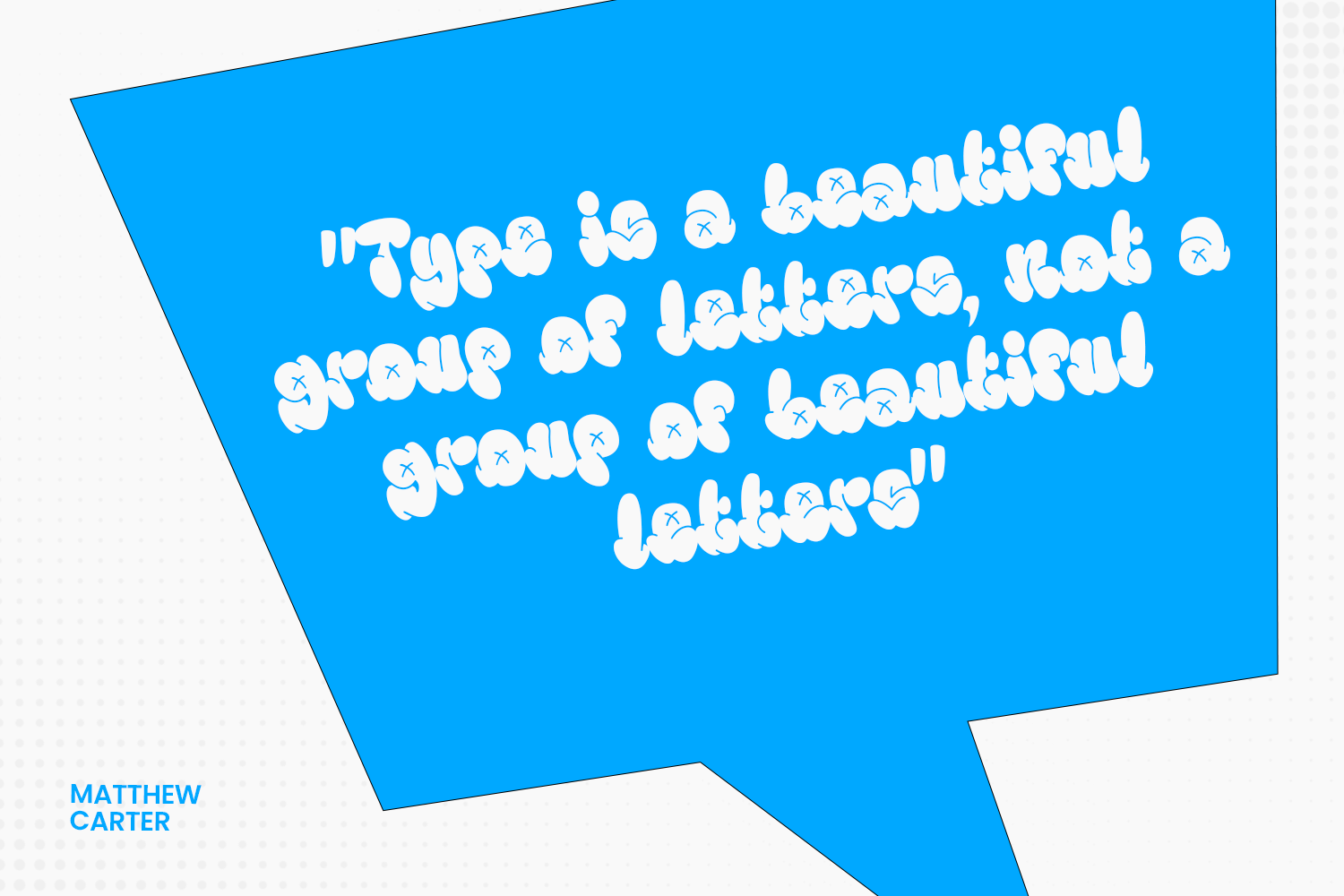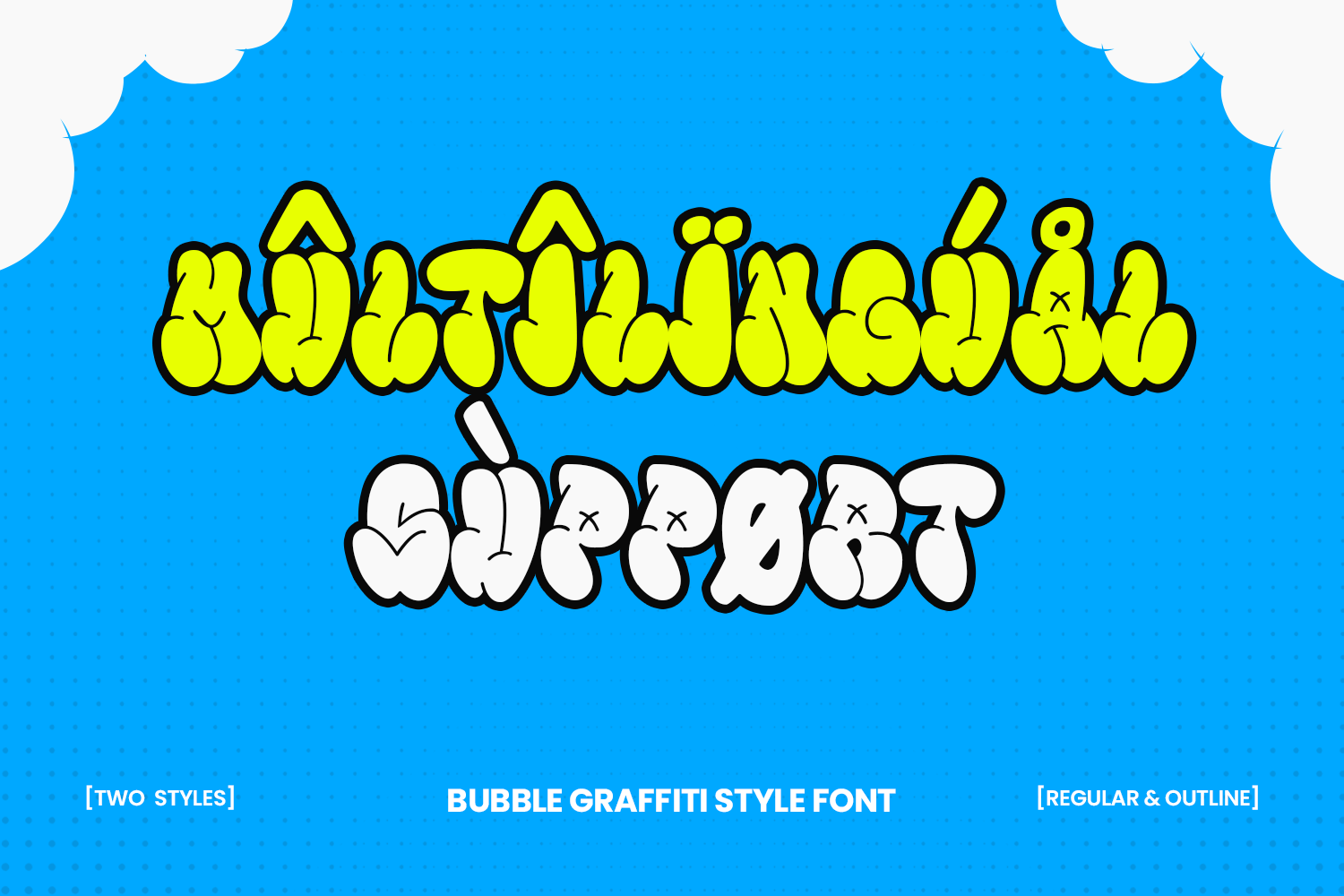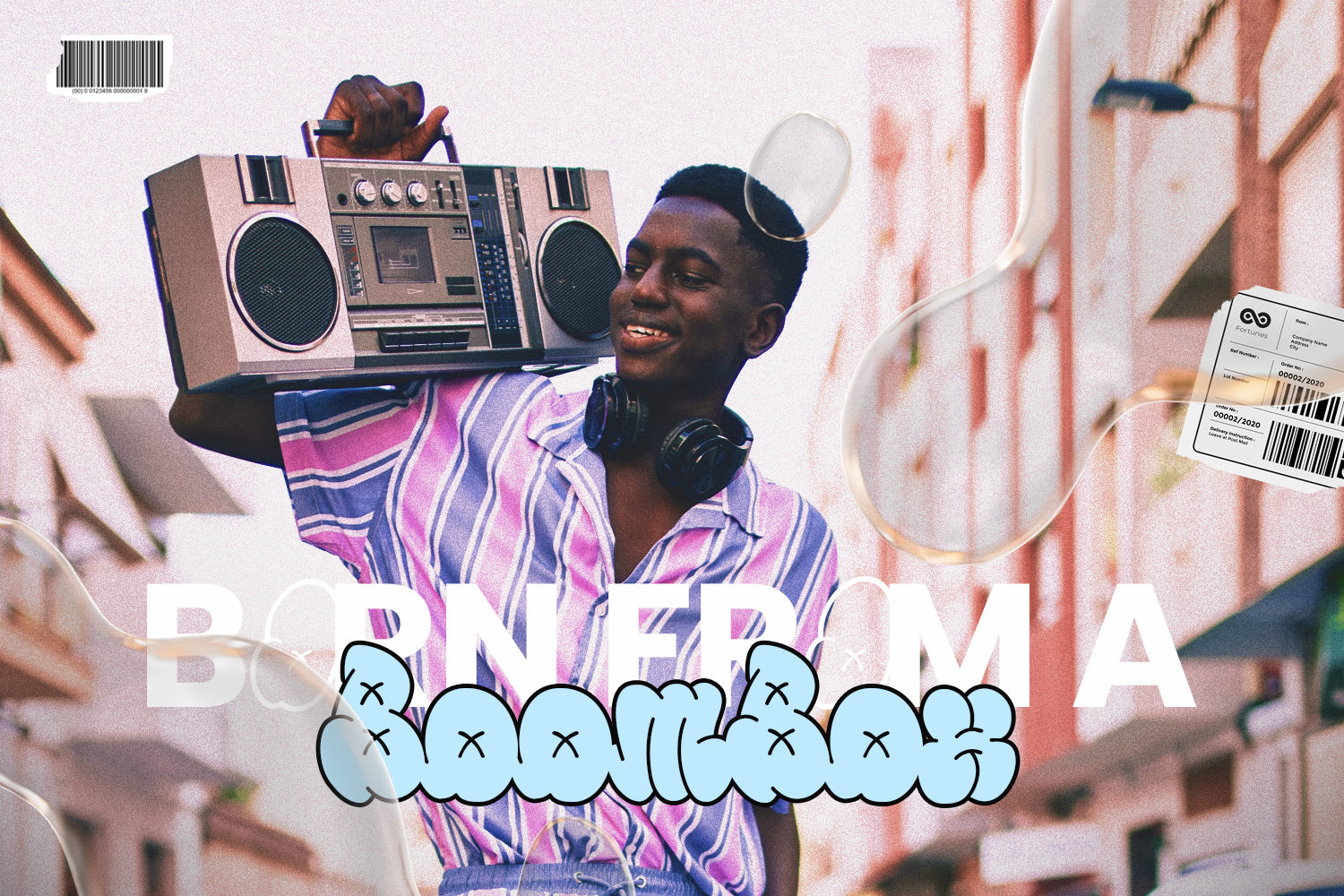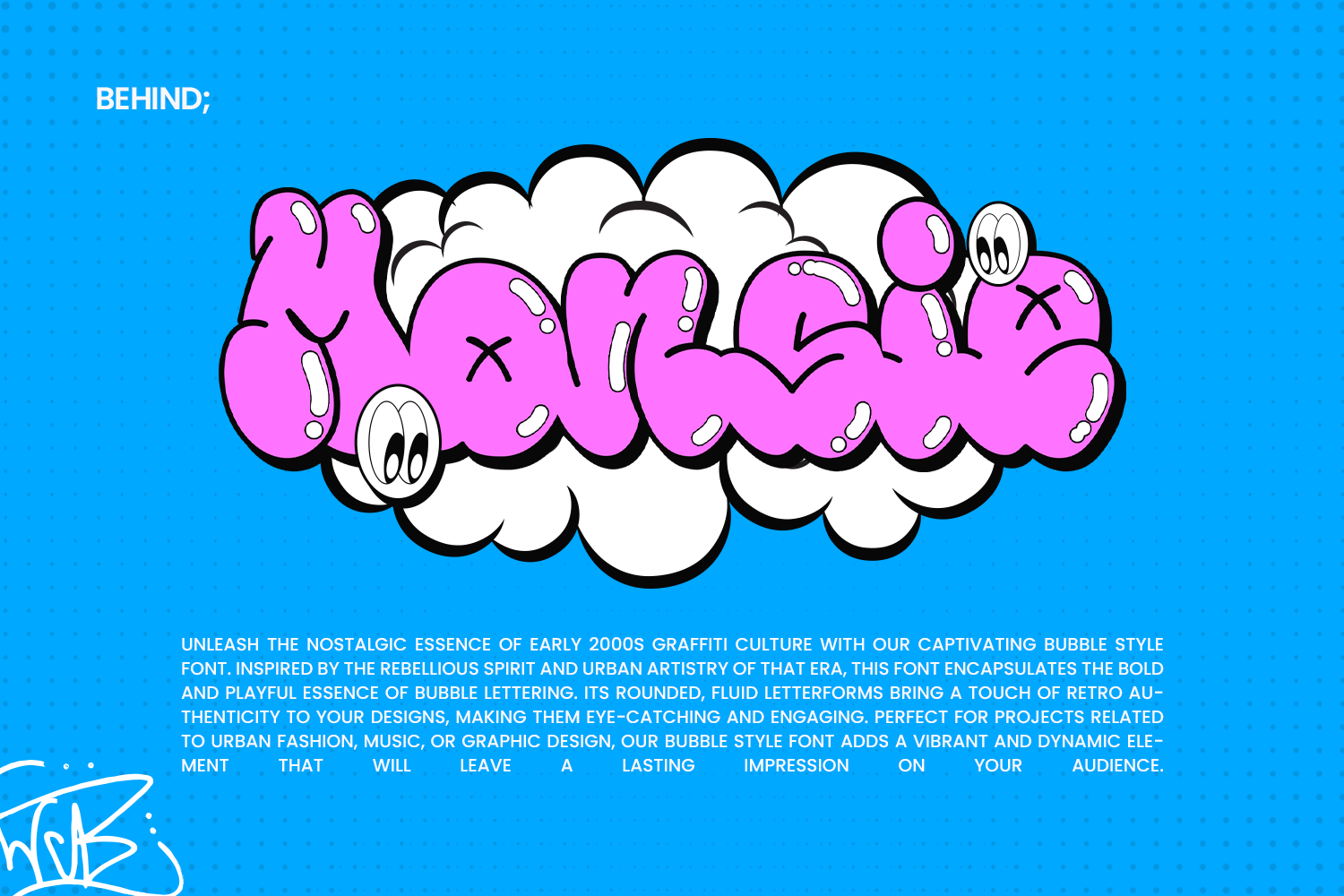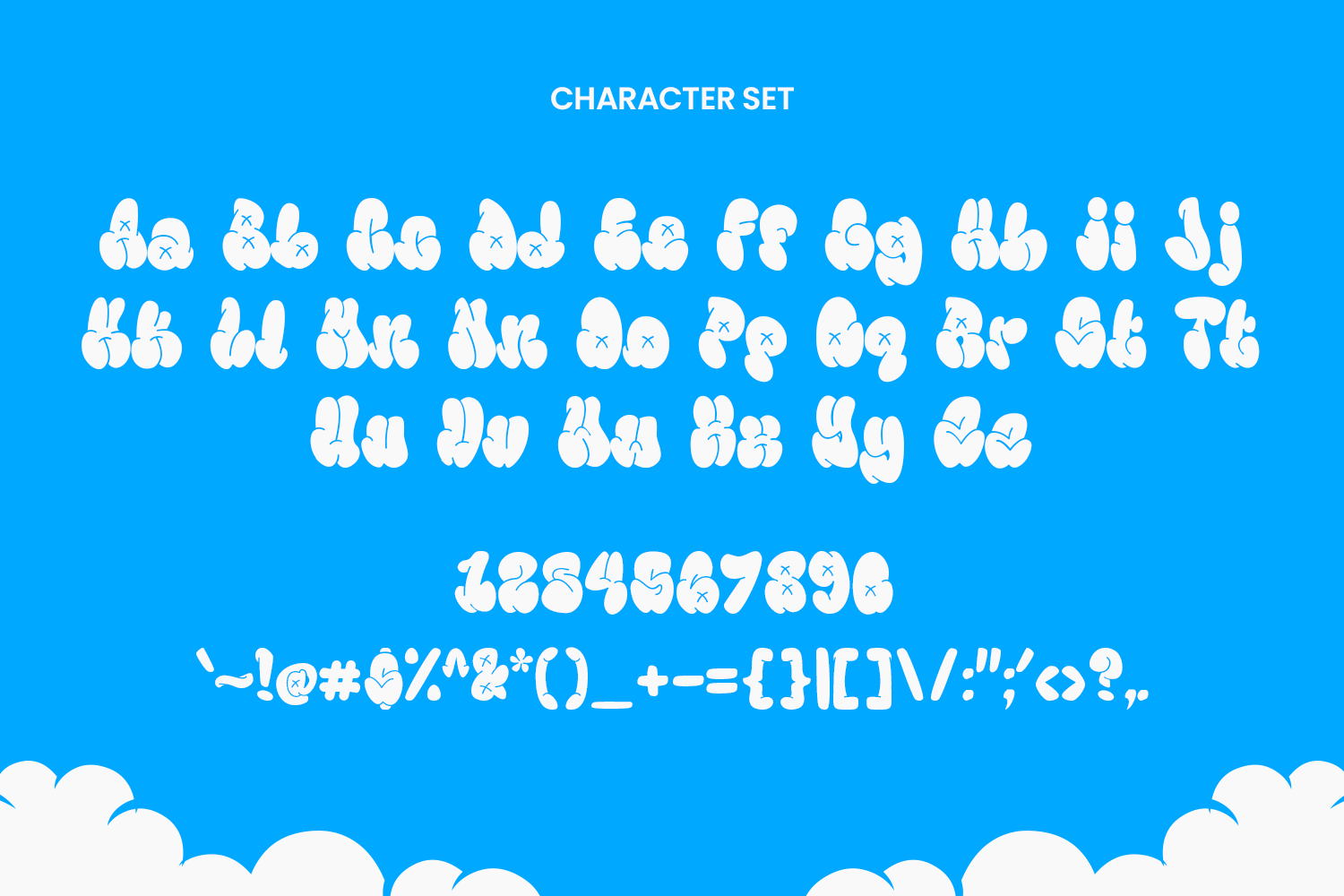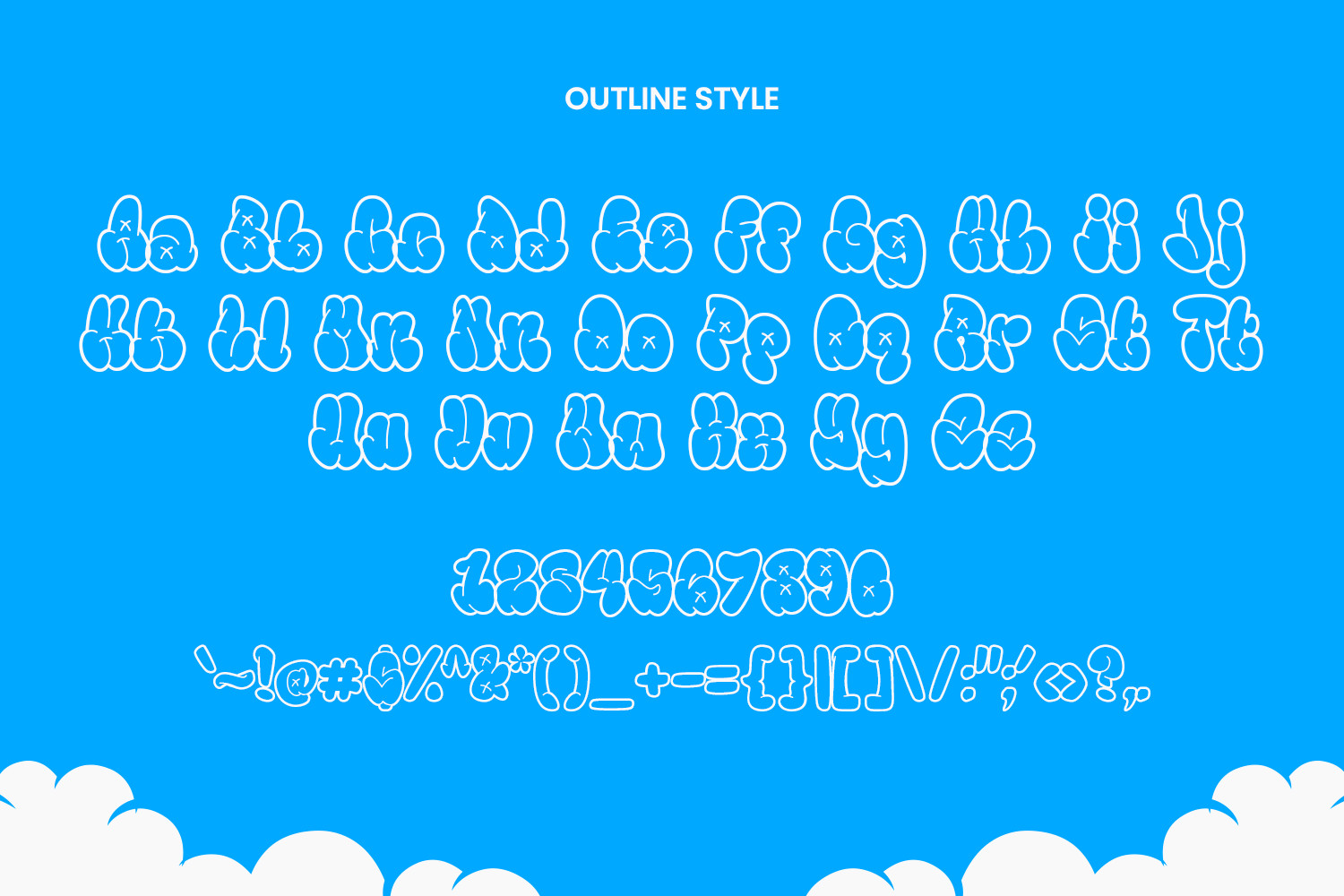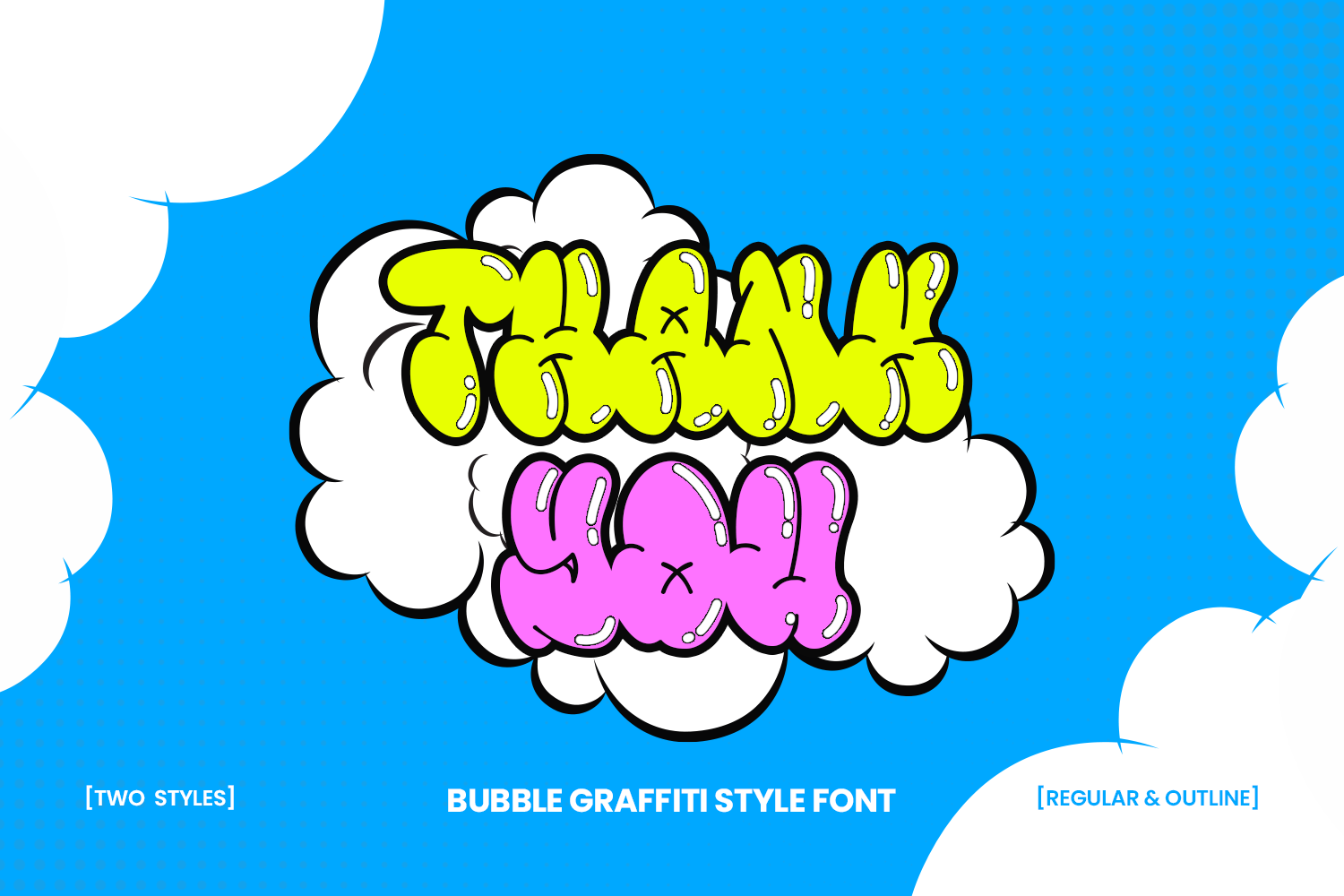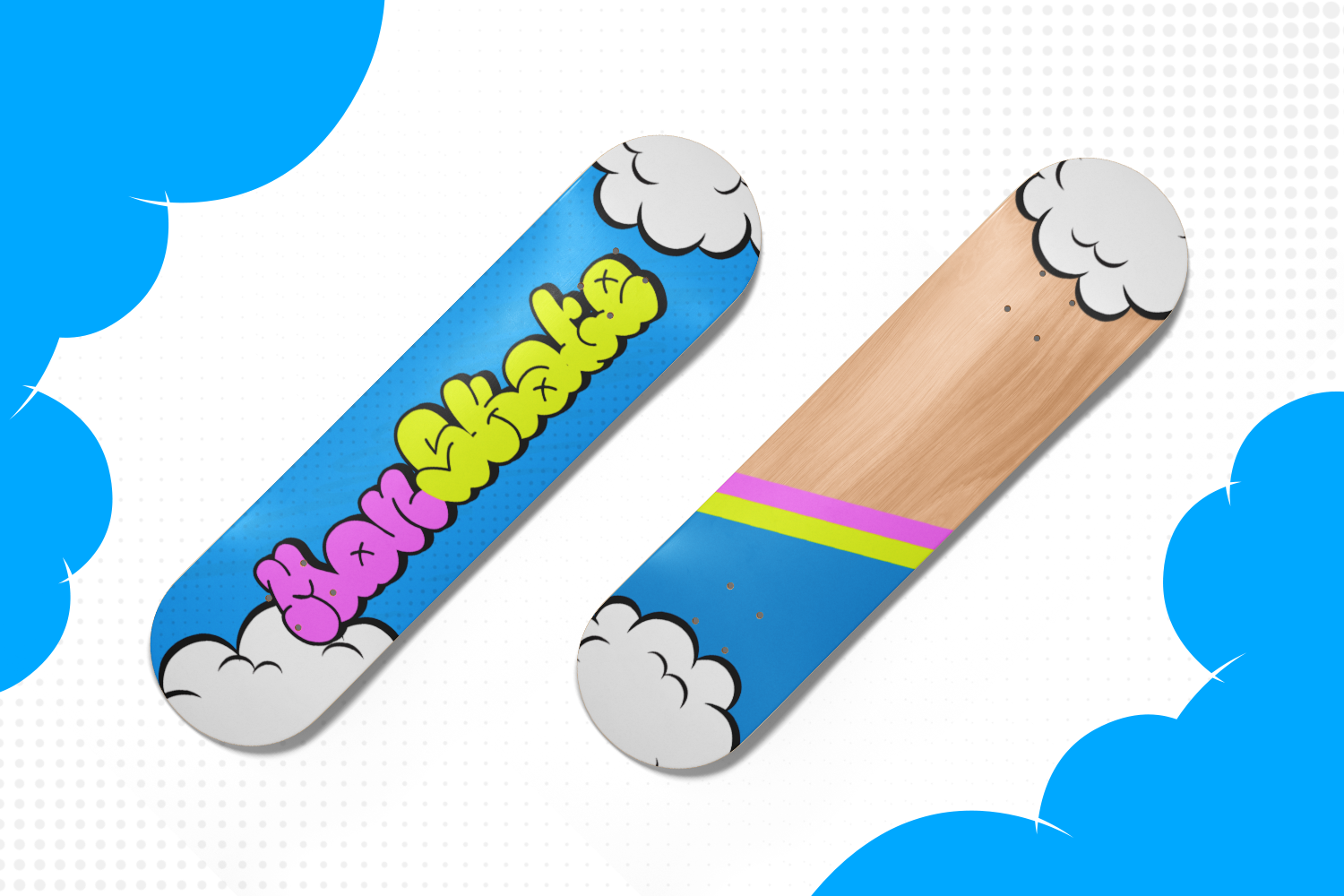
[FREE MONSIE GRAFFITI BUBBLE FONT]
Unleash the nostalgic essence of early 2000s graffiti culture with our captivating Bubble Style Font. Inspired by the rebellious spirit and urban artistry of that era, this font encapsulates the bold and playful essence of bubble lettering.
Embrace the edgy and contemporary feel of the Bubble Graffiti Font by pairing it with urban-themed designs or street art-inspired graphics.